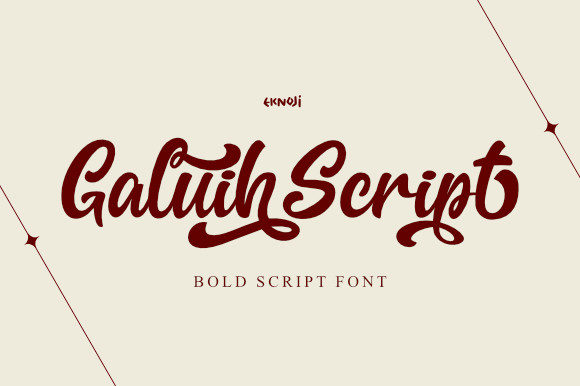
Galiuh Script: A Bold Handwritten Font for Impactful Communication
Looking for a font that blends elegance with strength? Galiuh Script is a handwritten typeface that delivers messages with confidence, authenticity, and charm. Designed for professionals, creators, and entrepreneurs, this bold script font is perfect for branding, design projects, or any content that needs to stand out.
With its PUA encoding, Galiuh Script offers easy access to all glyphs and swashes, making it a versatile choice for designers who want to add personality without complexity. Whether you're creating logos, marketing materials, or digital content, Galiuh Script brings a unique flair that enhances visual appeal and communication.
The Unique Features of Galiuh Script
Galiuh Script stands out due to its dynamic strokes, fluid curves, and expressive characters. Unlike standard sans-serif or serif fonts, this script typeface mimics the natural flow of handwriting, giving your text an organic, personal feel. The boldness of the font ensures readability even at smaller sizes, while the intricate details add sophistication.
One of the most notable qualities of Galiuh Script is its PUA (Private Use Area) encoding. This means users can easily access special characters, ligatures, and swashes using Unicode-compatible software. For designers and typographers, this feature simplifies the process of customizing text to match brand identity or creative vision.
Why Choose Galiuh Script Over Other Fonts?
Practical Applications Across Industries
Galiuh Script isn't just visually appealing—it's also highly functional. Here are some real-world applications where this font shines:
For Business Owners: Incorporate Galiuh Script into your logo, website headers, or email signatures to create a memorable brand presence. It conveys professionalism while maintaining a human touch.
For Marketers: Use this font in social media posts, banners, or ad creatives to capture attention. Its bold nature helps important messages stand out in crowded digital spaces.
For Educators and Bloggers: Add a personal touch to blog headers, course titles, or newsletter greetings. Galiuh Script can help build a more engaging and approachable tone.
For Freelancers and Creators: From portfolio websites to project proposals, this font adds a distinctive flair that sets your work apart from the competition.
Designing with Galiuh Script: Tips and Best Practices
While Galiuh Script is versatile, there are a few best practices to ensure it works well in different contexts:
1. Use Sparingly: Since it's a script font, overusing it may reduce readability. Reserve it for headlines, titles, or short phrases.
2. Pair with Complementary Fonts: Combine Galiuh Script with a clean sans-serif or serif font for body text to maintain balance and hierarchy.
4. Explore Swash Options: Take advantage of the PUA encoding to experiment with alternate characters and create unique typographic effects.
Enhancing User Experience with Galiuh Script
In today's fast-paced digital world, user experience (UX) plays a crucial role in engagement. Galiuh Script contributes positively to UX by making content more visually appealing and emotionally resonant. Studies show that readable, aesthetically pleasing typography increases user retention and interaction rates.
When used effectively, Galiuh Script can elevate the perceived value of your content. Whether it's a product name, call-to-action button, or headline, the font’s bold character adds emphasis and urgency, encouraging users to take action.
Additionally, the font’s handwritten nature creates a sense of trust and authenticity—qualities that are especially valuable in industries like fashion, lifestyle, and personal branding.
Considerations When Implementing Galiuh Script
Before adopting Galiuh Script for your project, consider these factors:
Galiuh Script is more than just a font—it's a tool that empowers creators to communicate with confidence and style. Whether you're designing a logo, crafting a marketing campaign, or enhancing your website, this bold handwritten font offers a unique blend of functionality and artistic expression.